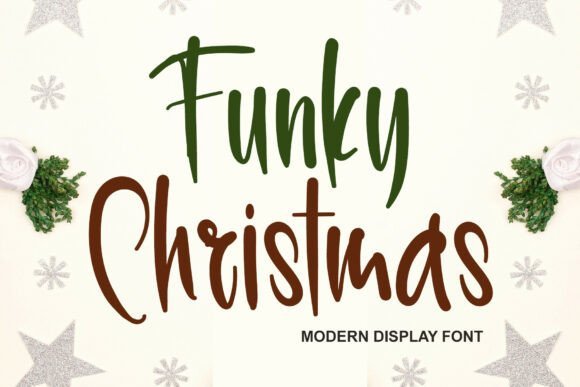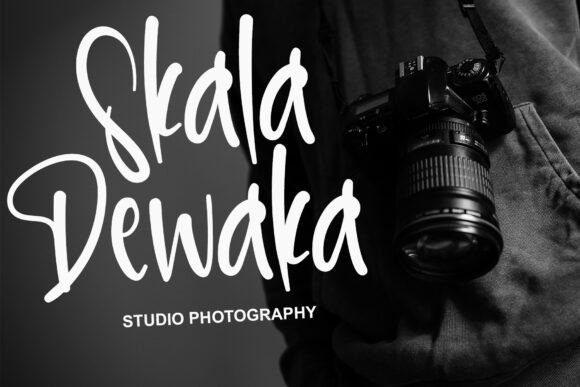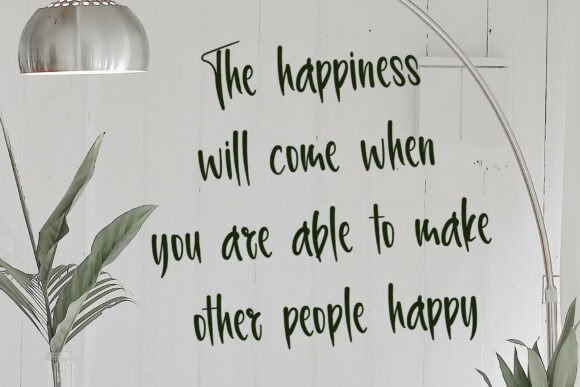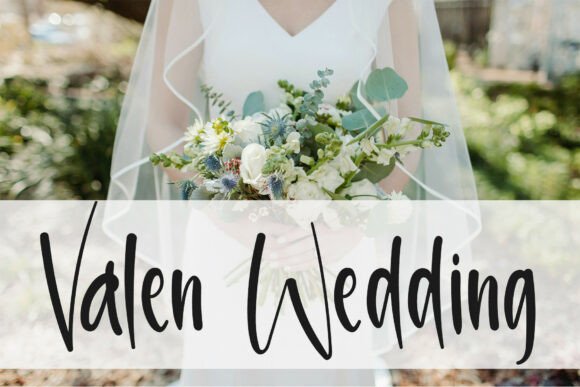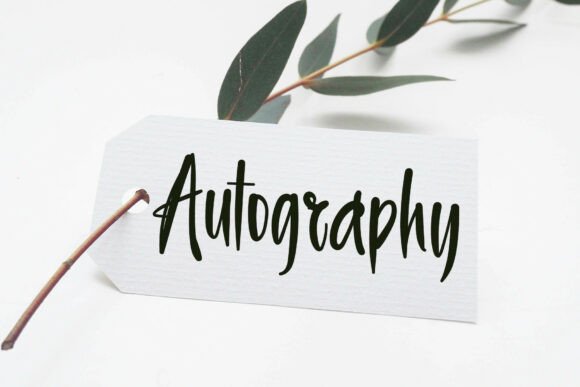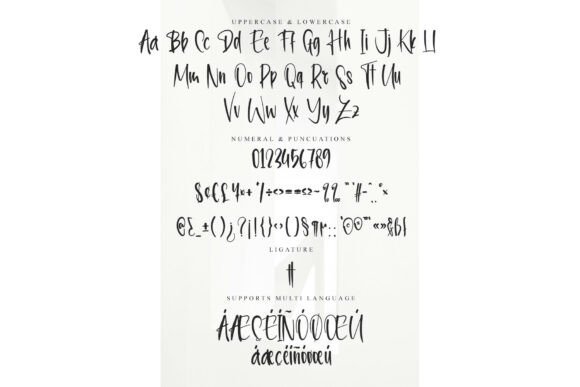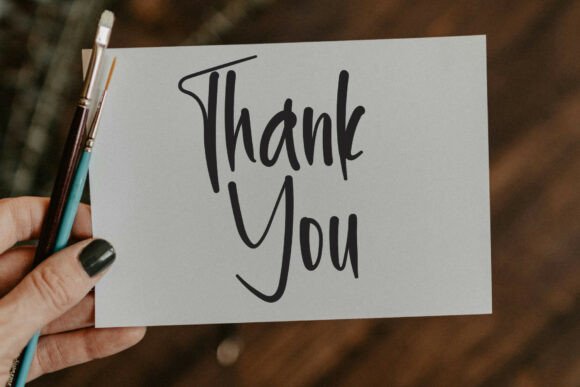
Deck the Halls with a Dash of Personality
As the holiday season approaches, I find myself rummaging through my collection of festive fonts, searching for the perfect one to capture the essence of the season. It’s that magical moment when inspiration strikes, and I stumble upon a font that makes my heart skip a beat. This year, I discovered a true showstopper – the Funky Christmas Font.
This dynamic font is more than just a pretty face; it’s a powerful tool for designers who crave a unique touch. With its bold, fluid strokes and modern script style, the Funky Christmas Font exudes strength, elegance, and charisma. Whether you’re crafting a striking logo, a stylish headline, or an eye-catching branding element, this font delivers with confidence and flair.
Funky Christmas Font Key Features
- Unique Characteristics: The font features a fun, playful design with bold and colorful elements, making it perfect for festive and holiday-themed designs
Funky Christmas Font Review
I recently had the chance to work with the Funky Christmas Font, and I must say, it’s a real mixed bag. On one hand, here are some things that work well: ✨
- Unique charm – The Funky Christmas Font has a quirky, playful feel to it that’s perfect for adding some holiday cheer to your designs.
- Good for bold statements – The font’s bold, eye-catching style makes it ideal for headings, titles, and other elements where you want to grab attention.
- Fun for creative projects – If you’re working on a project that requires a bit of whimsy and personality, the Funky Christmas Font is a great choice.
- Not suitable for formal projects – The font’s playful style may not be the best fit for formal or professional projects where a more serious tone is required.
- May not be legible at small sizes – Some of the font’s more intricate elements may become difficult to read when the font size is reduced.
- Limited character set – The font may not include all the characters you need, which can be a problem if you’re working on a project that requires a lot of special characters.
Overall, the Funky Christmas Font is a fun and creative choice for holiday-themed projects or anything that requires a bit of personality. Just be mindful of its limitations and use it judiciously.
The Funky Christmas Font is perfect for creating festive and fun designs, such as:
- Christmas card templates
- Party invitations
- Social media graphics
- Decorative headers and titles
Remember to experiment with different font sizes and styles to get the most out of the Funky Christmas Font.
Alternatives to Funky Christmas Font
Christmas in Paris
Christmas in Paris is a stylish, elegant font perfect for designers looking to create a sophisticated holiday atmosphere. It features a mix of cursive and script elements, making it ideal for wedding invitations, holiday cards, and other high-end designs. Compared to Funky Christmas Font, Christmas in Paris is more refined and less playful, making it suitable for more formal occasions.
Rockwell Christmas
Rockwell Christmas is a bold, serif font that exudes a classic, vintage feel. It’s perfect for designers who want to create a nostalgic holiday atmosphere. Compared to Funky Christmas Font, Rockwell Christmas is more serious and less whimsical, making it suitable for designs that require a touch of tradition and elegance.
Wonderland
Wonderland is a playful, handwritten font that’s perfect for designers who want to add a touch of whimsy to their holiday designs. It features a mix of cursive and script elements, making it ideal for children’s books, party invitations, and other fun and festive designs. Compared to Funky Christmas Font, Wonderland is more carefree and less formal, making it suitable for designs that require a lighthearted and playful tone.